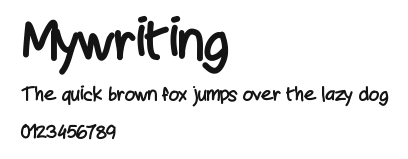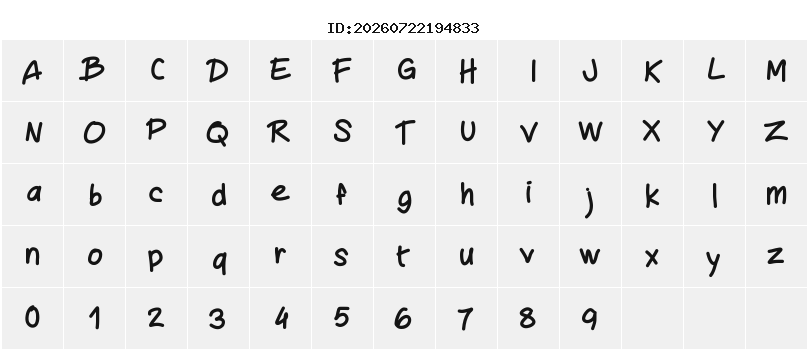
About Mywriting.ttf
Mywriting.ttf is a modern, elegant sans-serif font designed for ultimate readability and visual harmony. Perfect for branding, headlines, web design, and print materials.